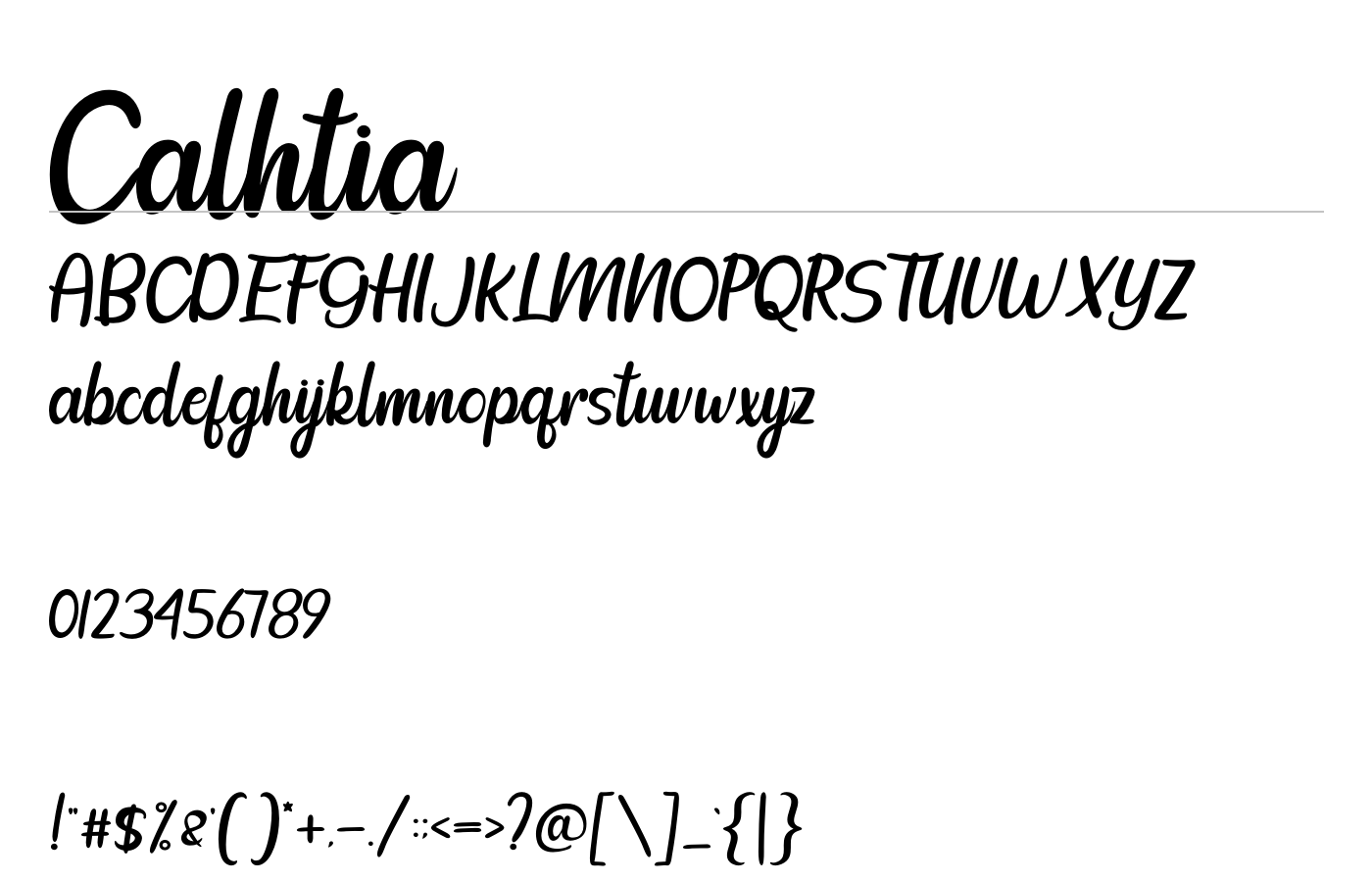
Calhtia is a lively and elegant script font with a smooth, handwritten feel, combining both uppercase and lowercase letters that flow with a natural, playful rhythm. Its medium weight and slightly condensed shapes make it versatile for creative branding, invitations, and casual editorial uses where a friendly yet refined touch is desired. This font works well for designs that seek a personal, approachable vibe without sacrificing sophistication.
Calhtia Font
About Calhtia Font